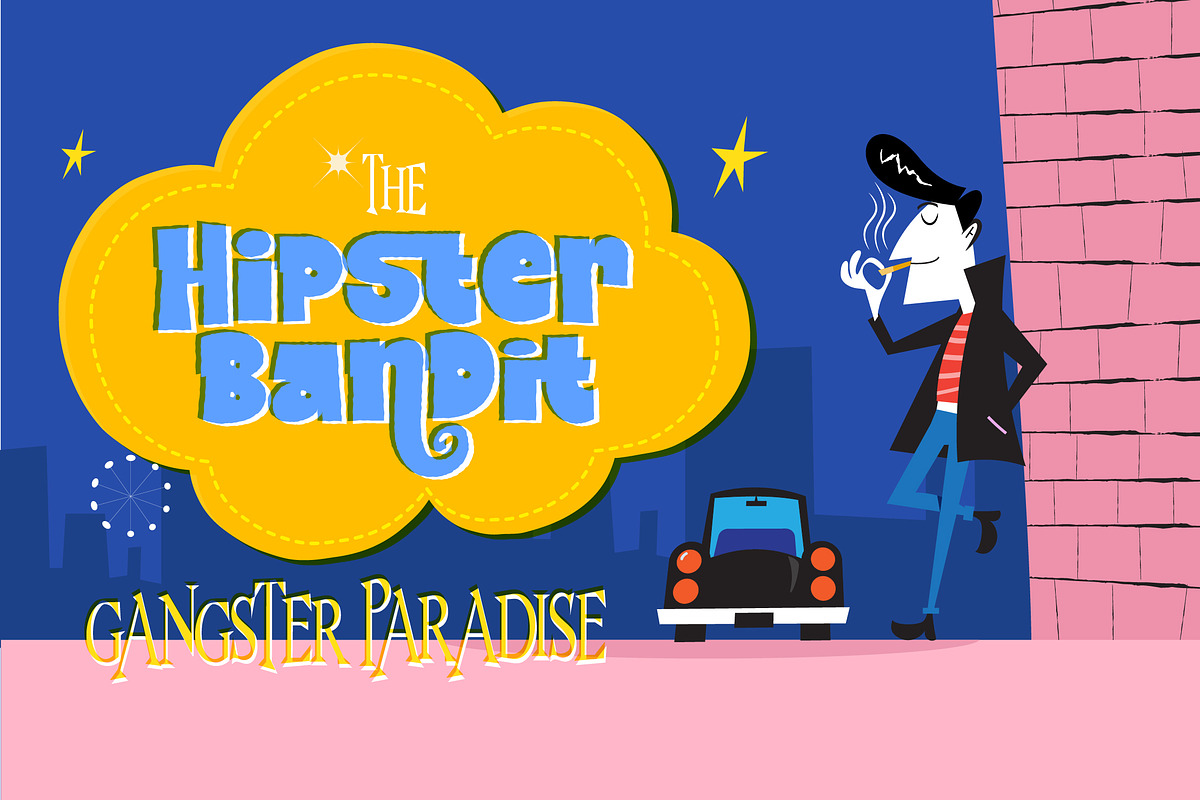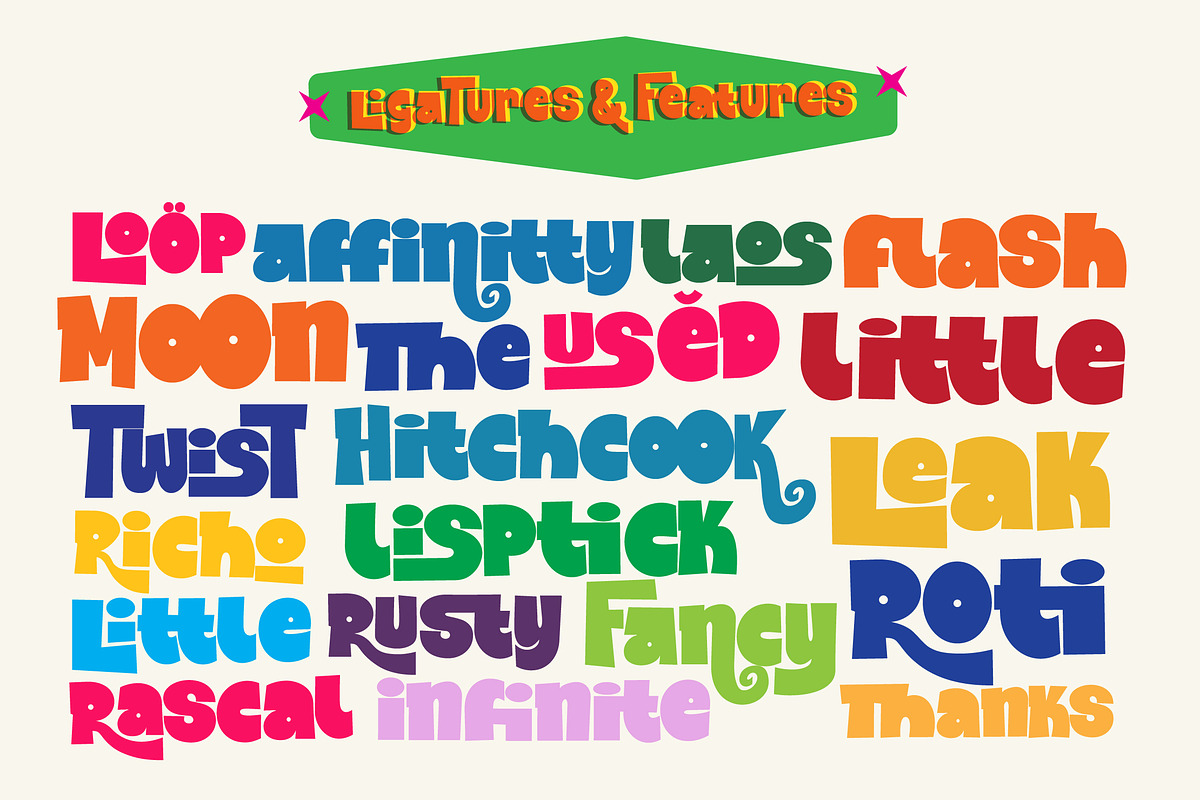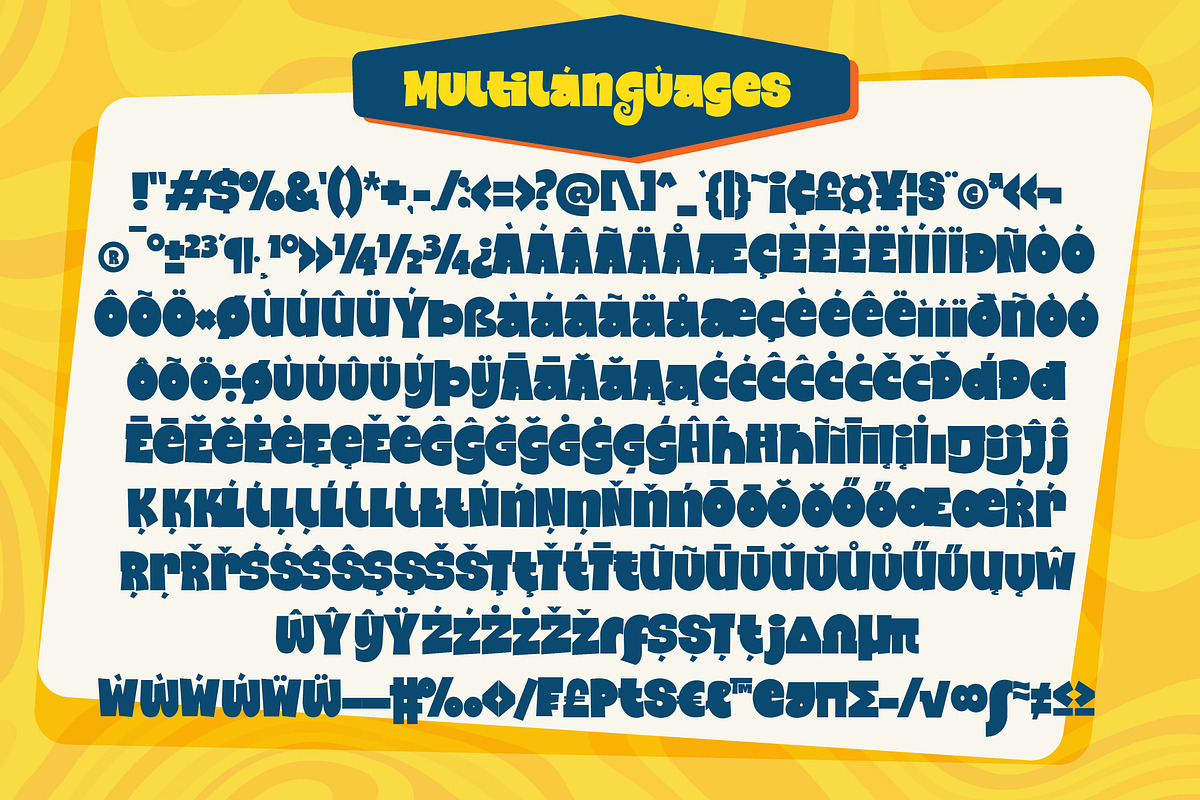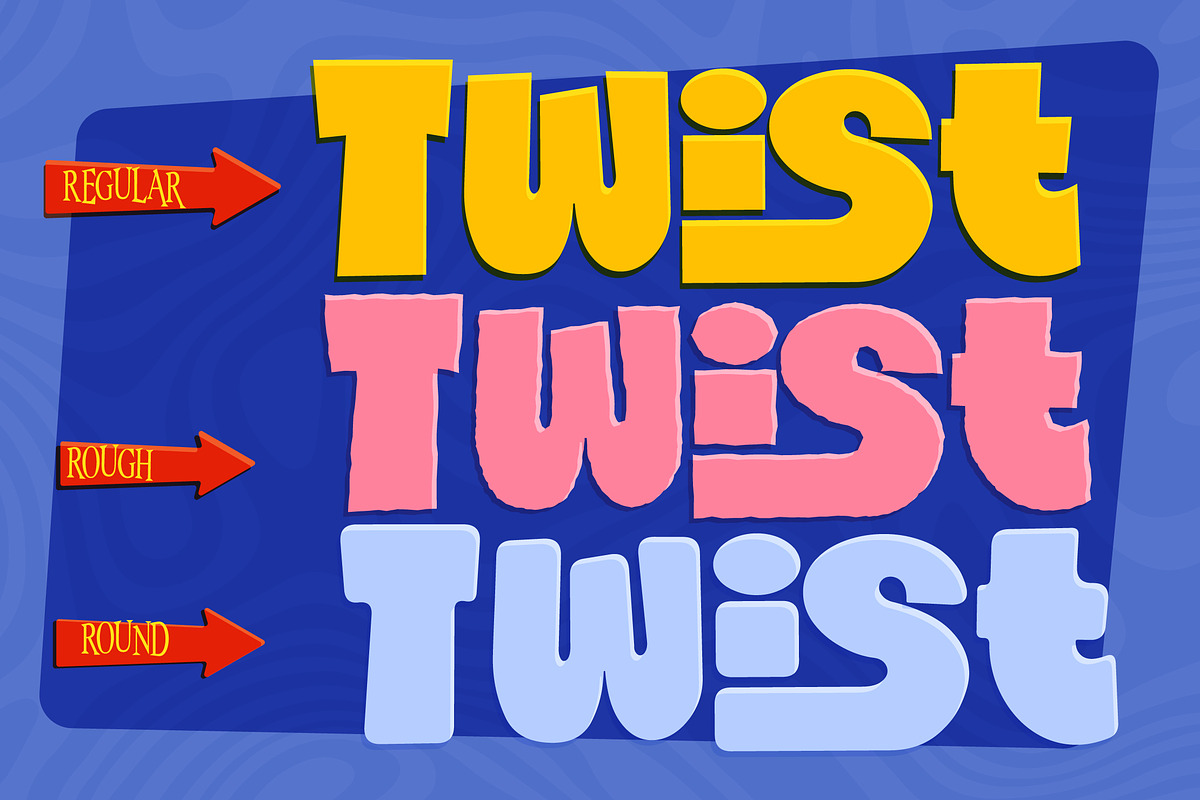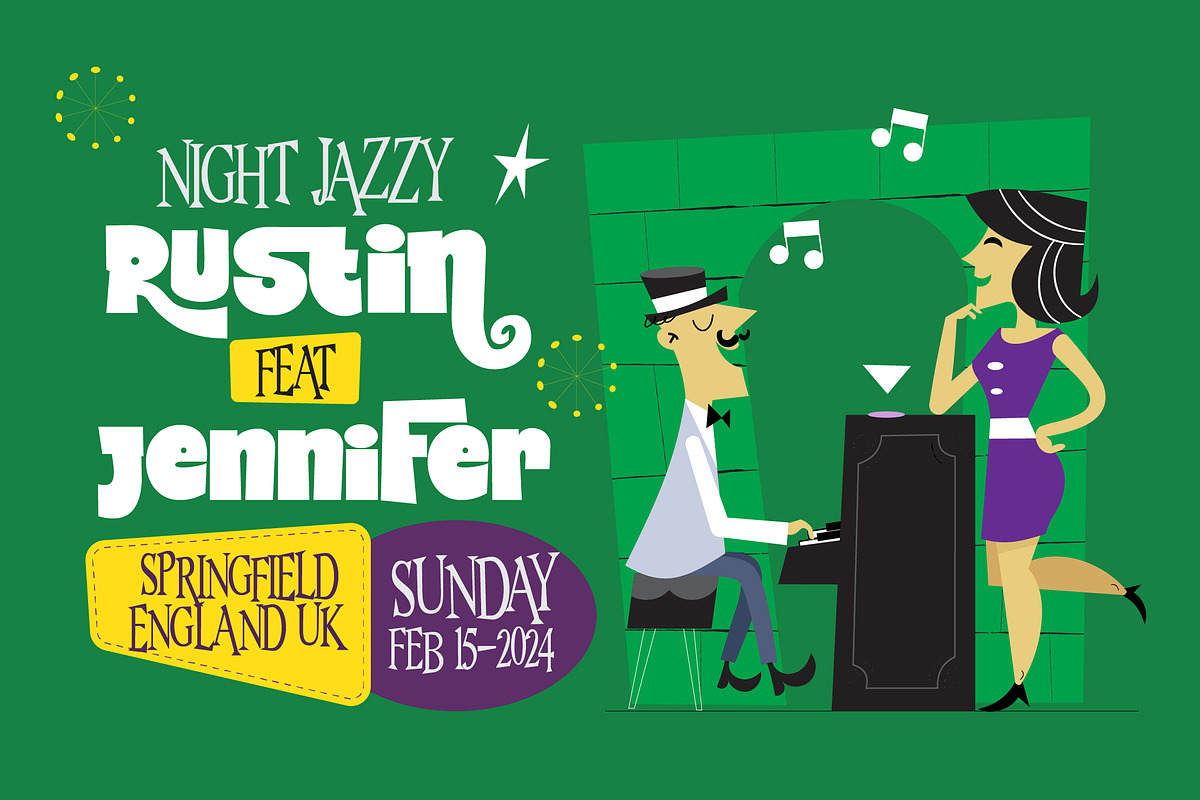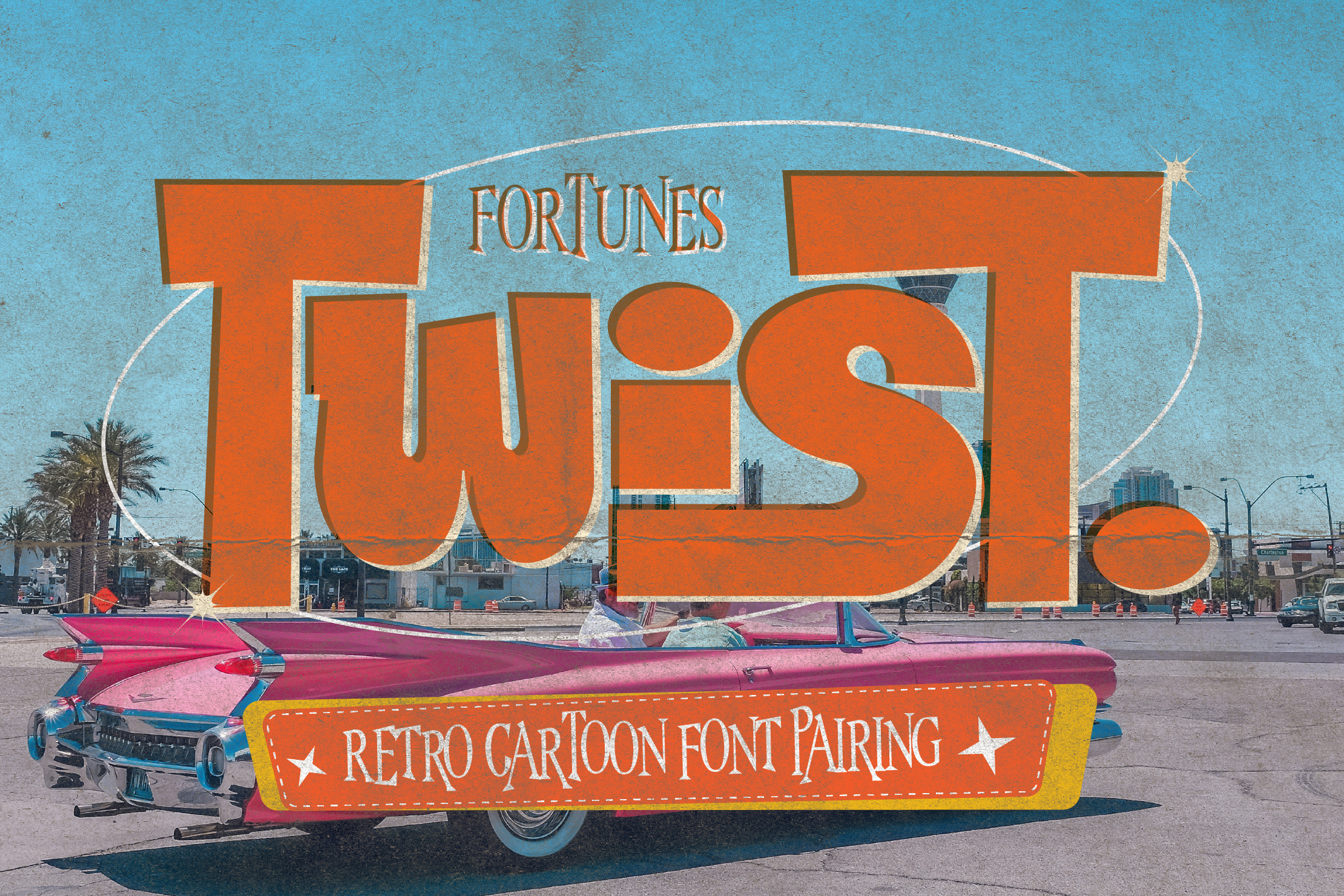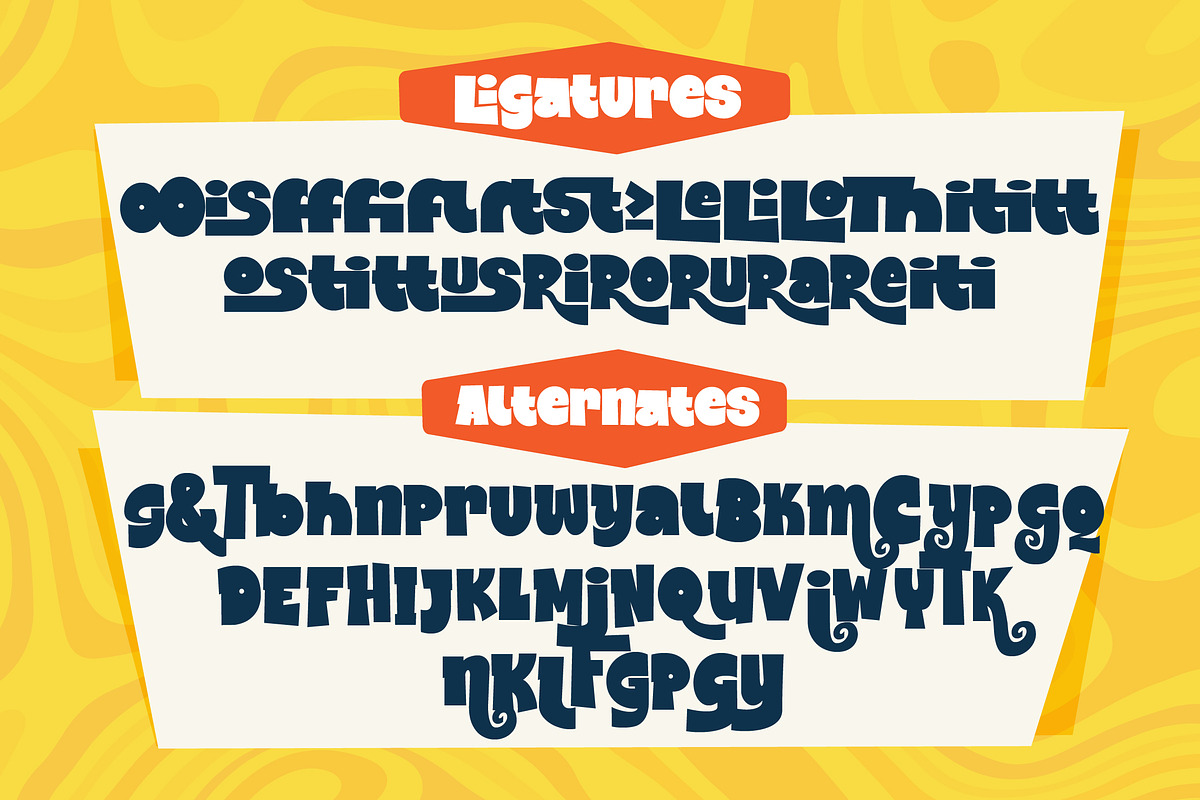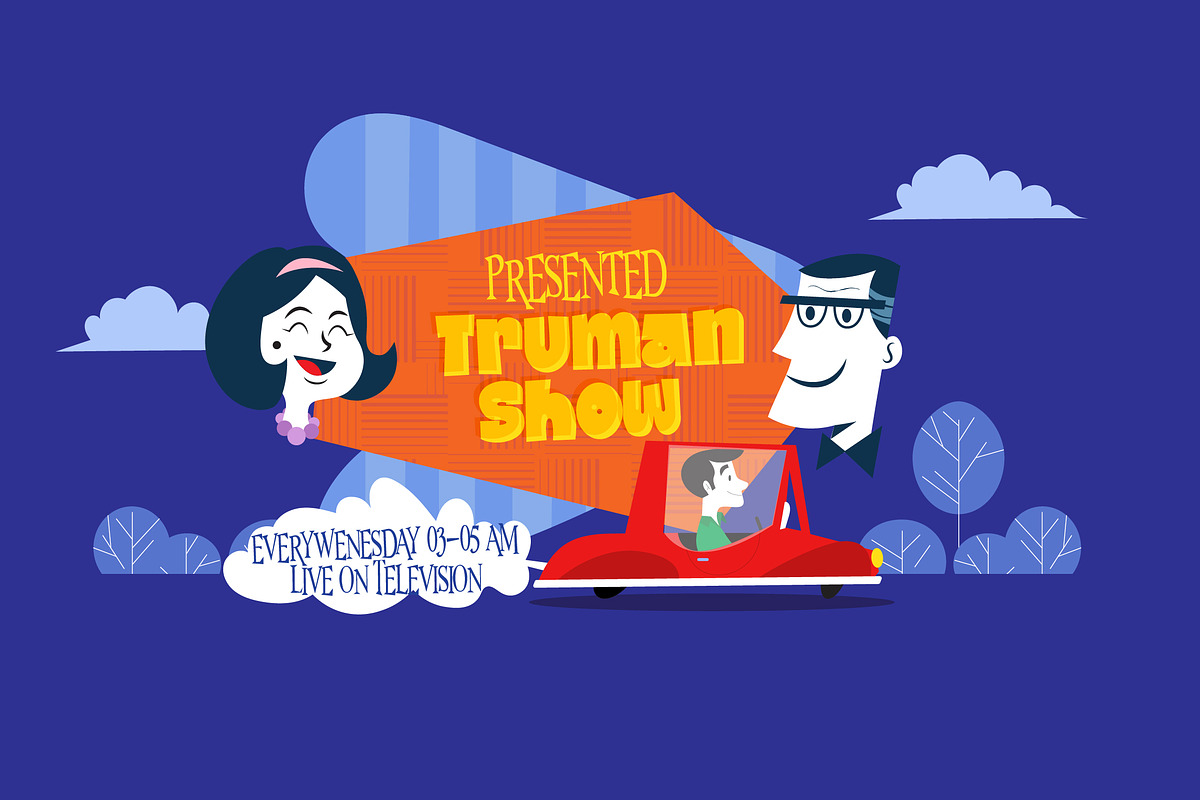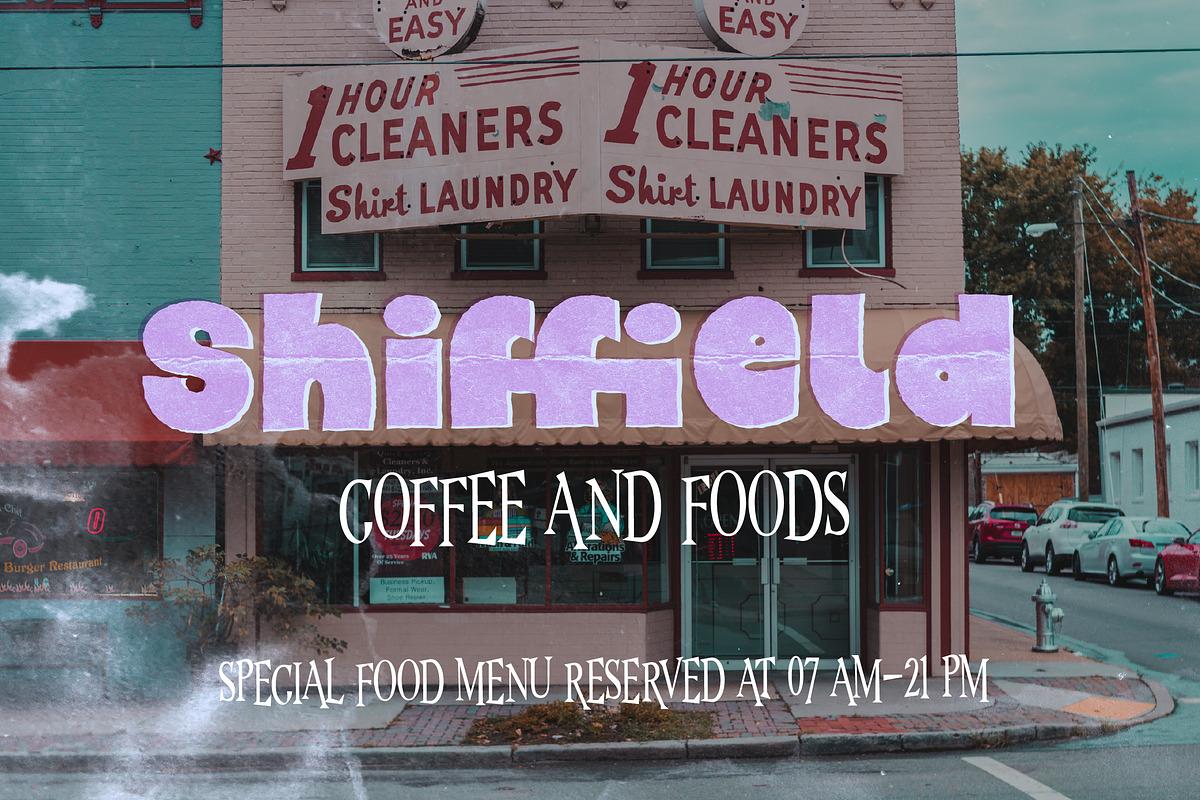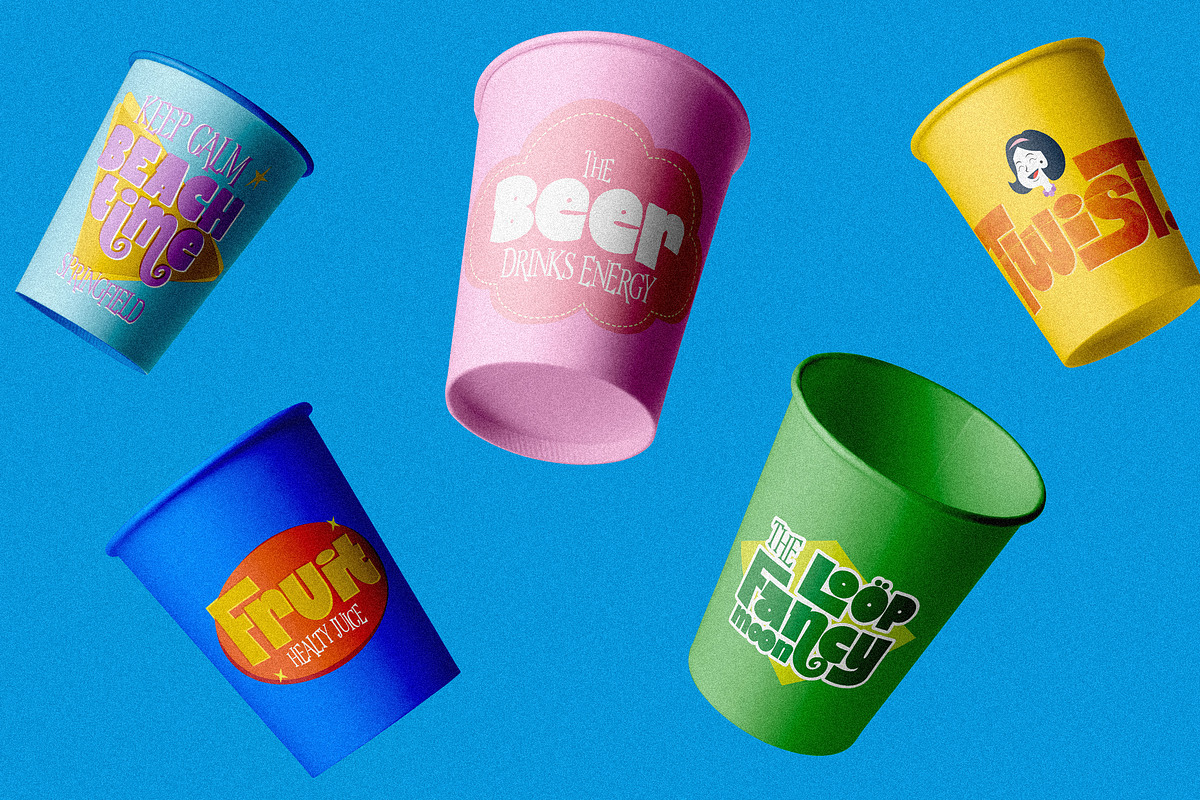
Twist Retro Font Pack
The Twist font is a bold typeface with a playful appearance. I tried to combine 2 fonts inspired by TV broadcasts, mid-century storybooks. It is suitable for broadcast, labels, logos, magazines, clothing and other commercial purposes. You can choose from three styles, regular, round, and rough, so you can get the retro/modern look you want
- 3 style (Regular, Rough, Round)
- 4 Font
- Ligatures (Li, Lo, Le La, is, os, tt, itt, ae, ff, fl, ffl, fi, oo, ti, us, st, Th, it, Ra.)
- Twist multilanguage support latin Pro
- louwie Latin
- Numbering & Punctual